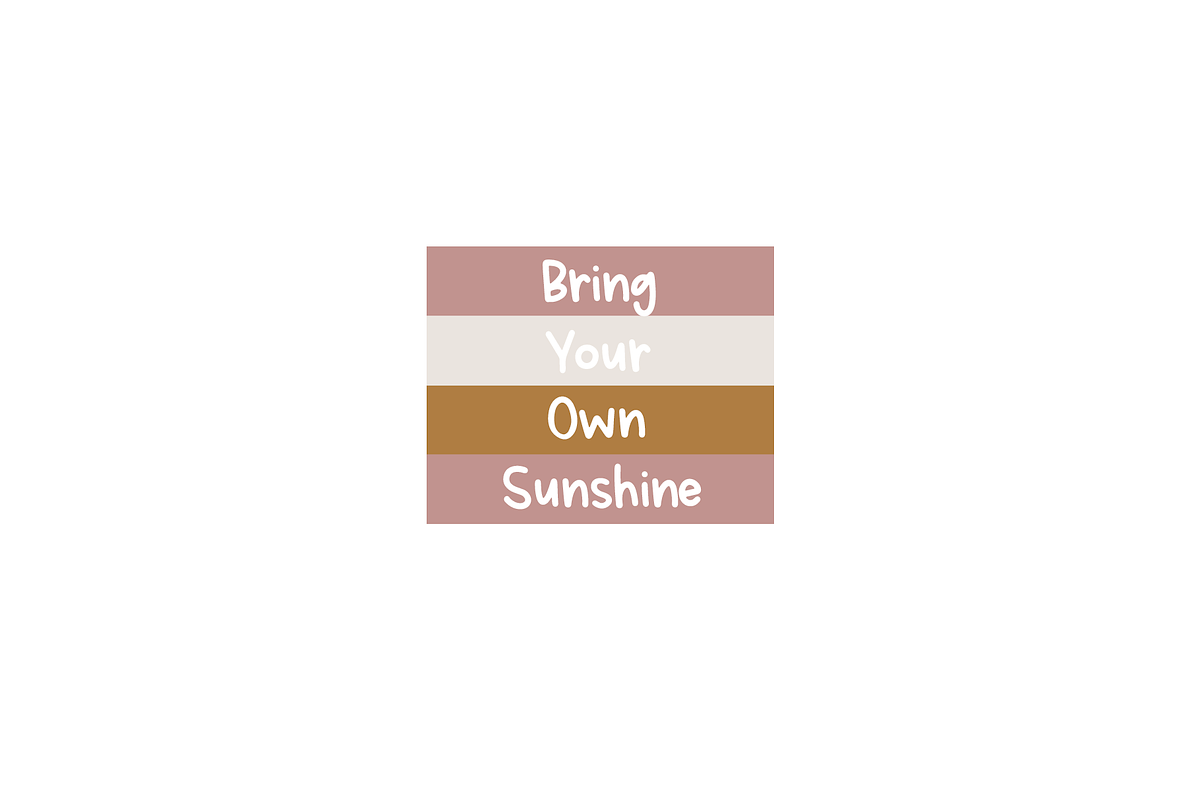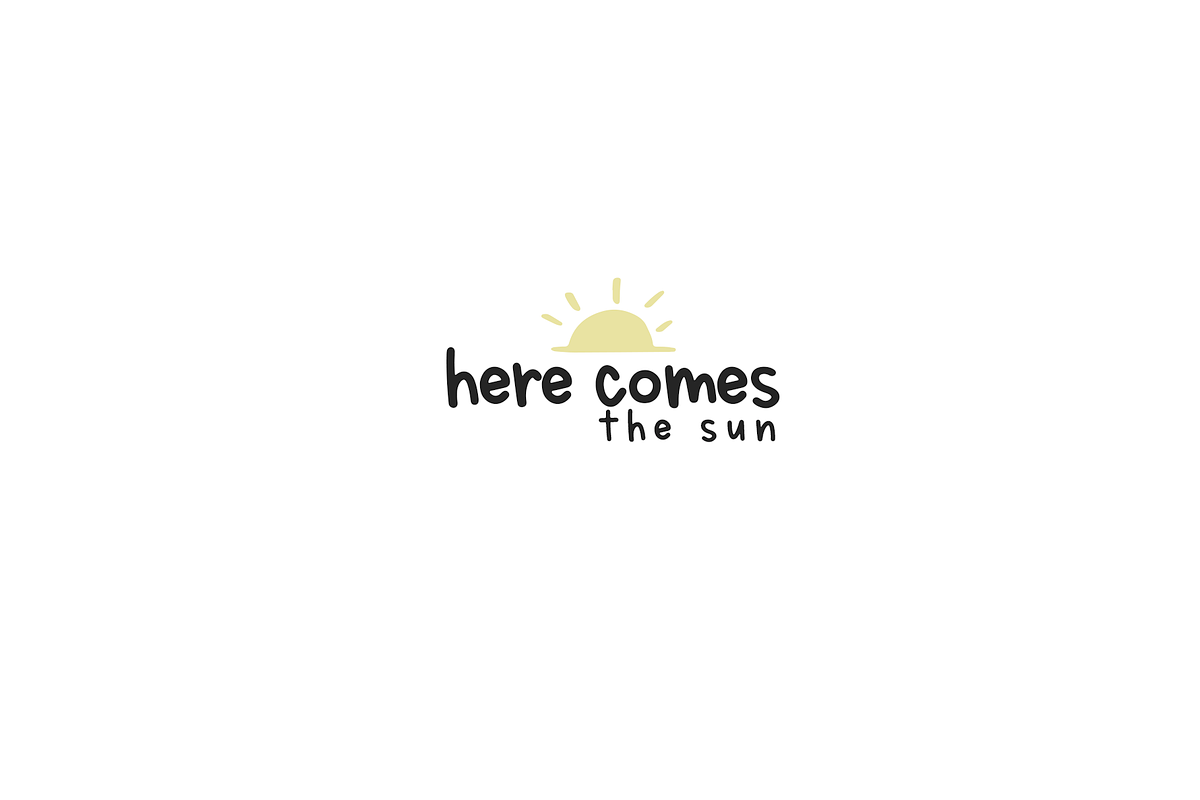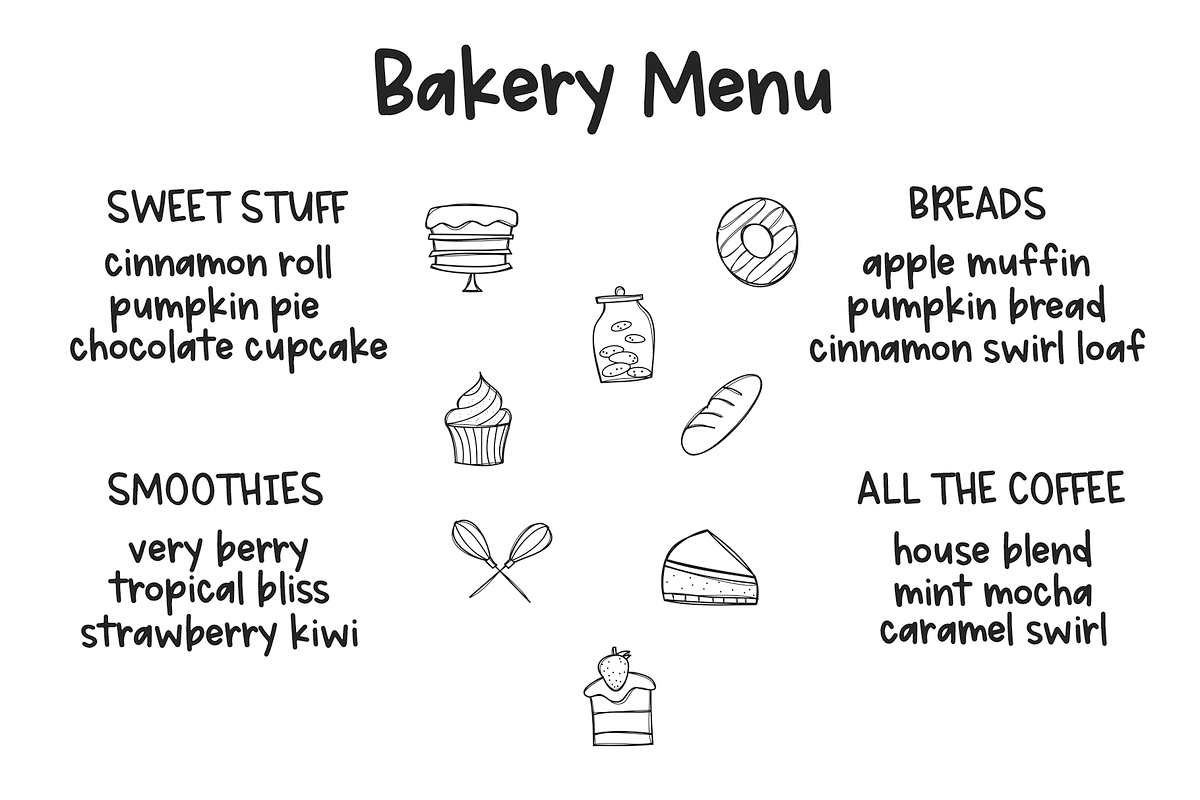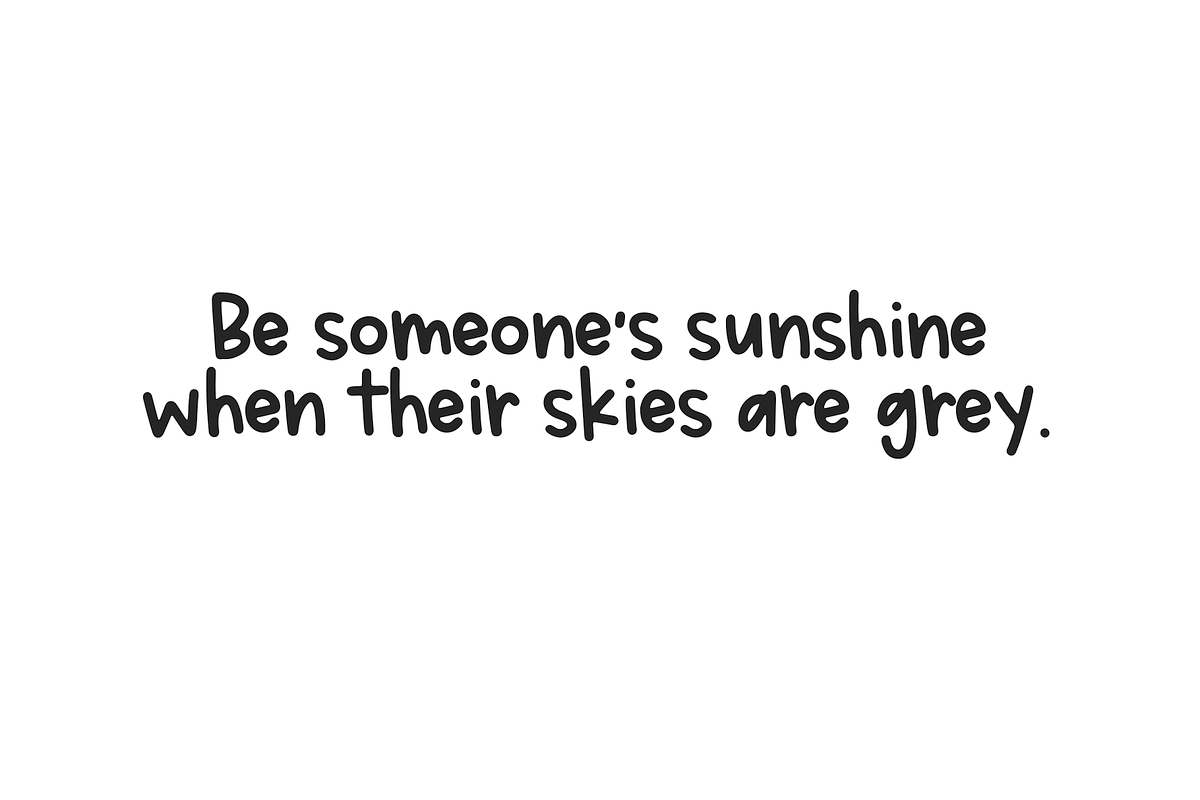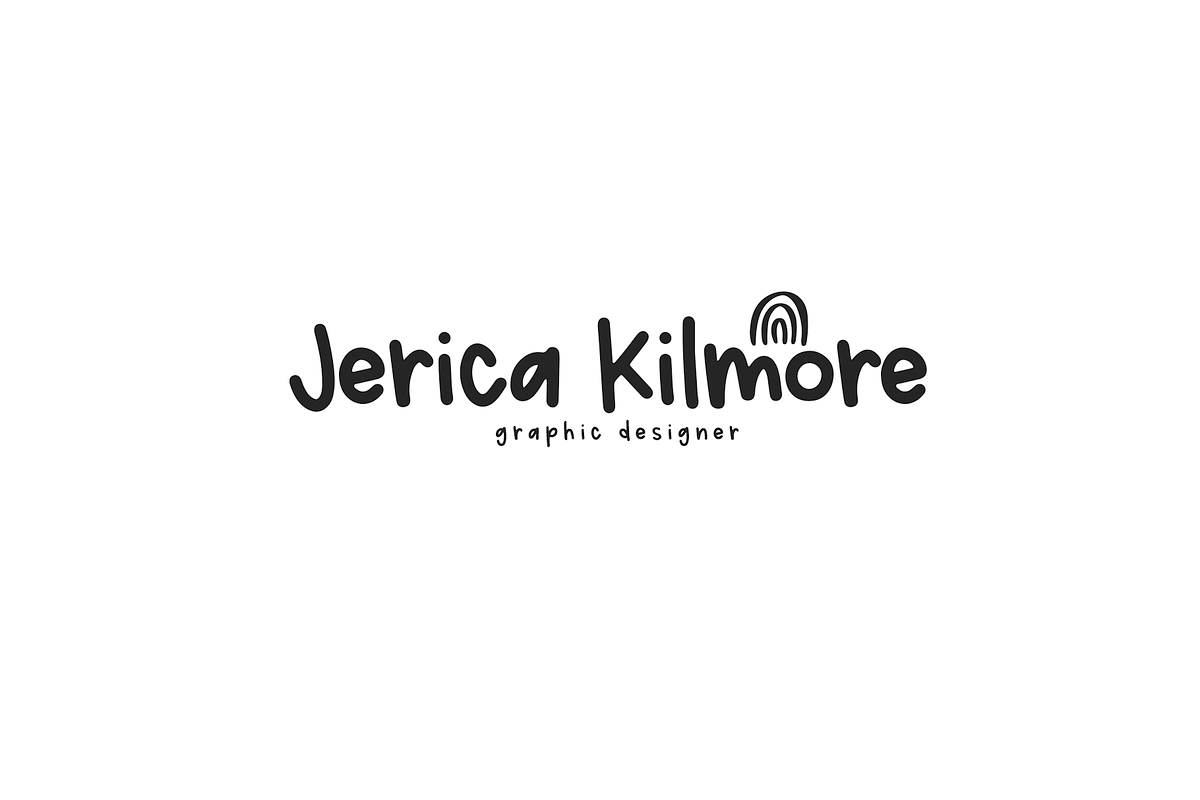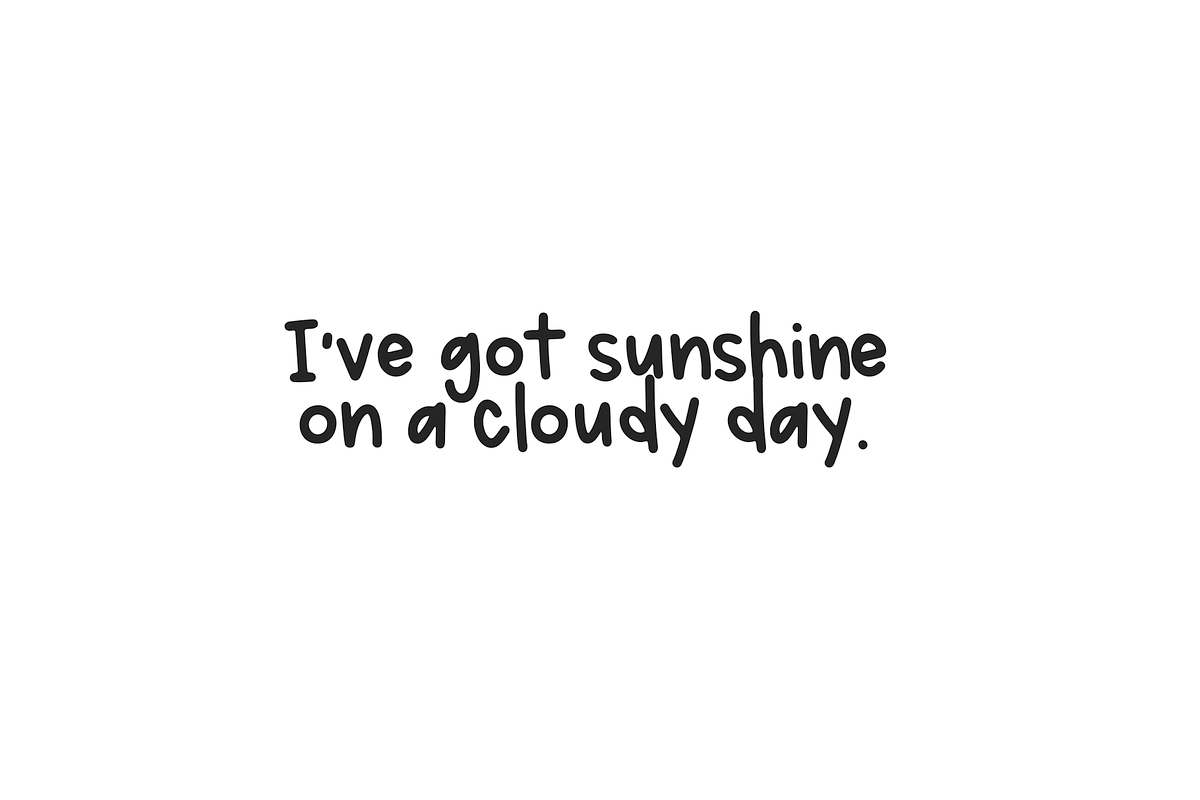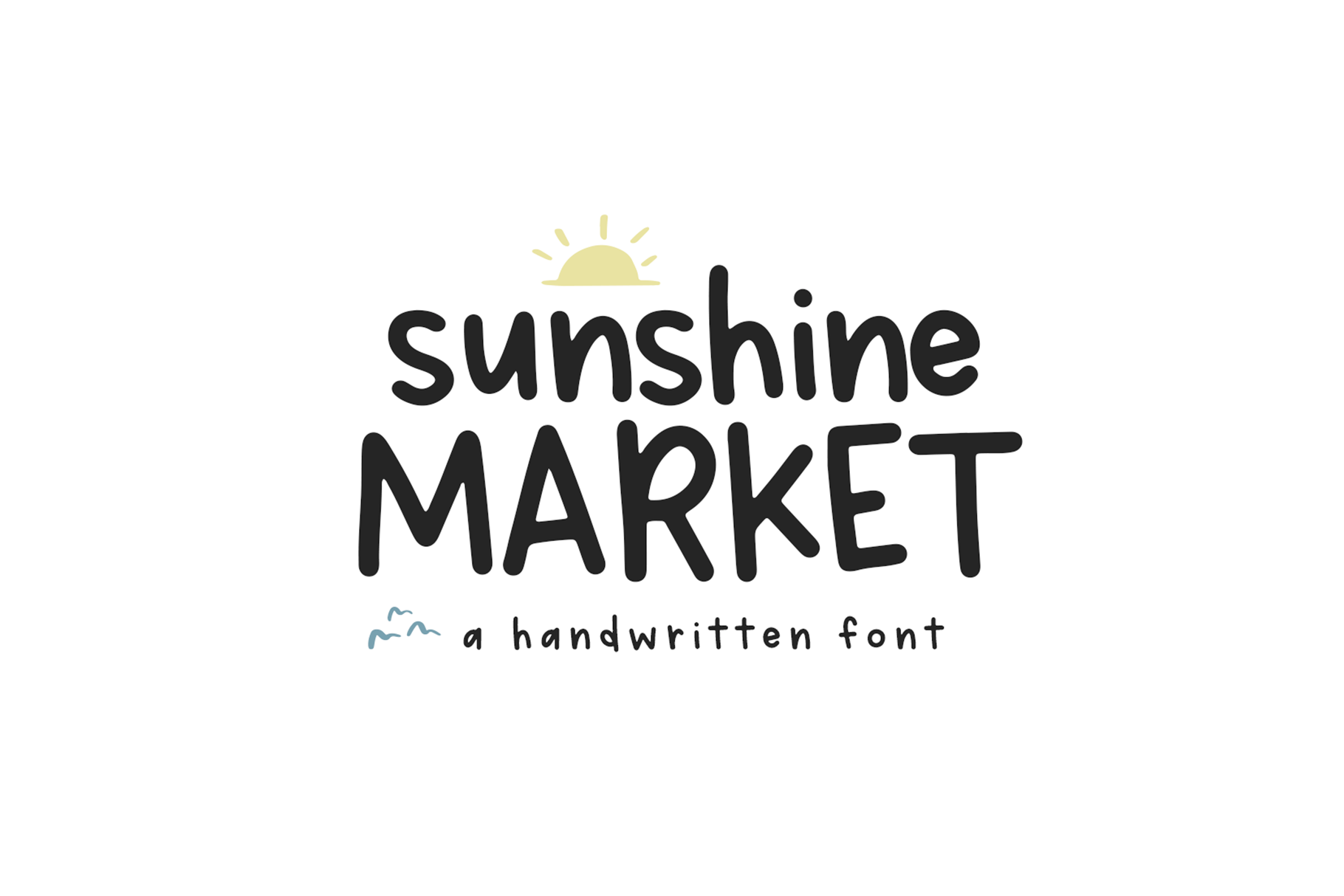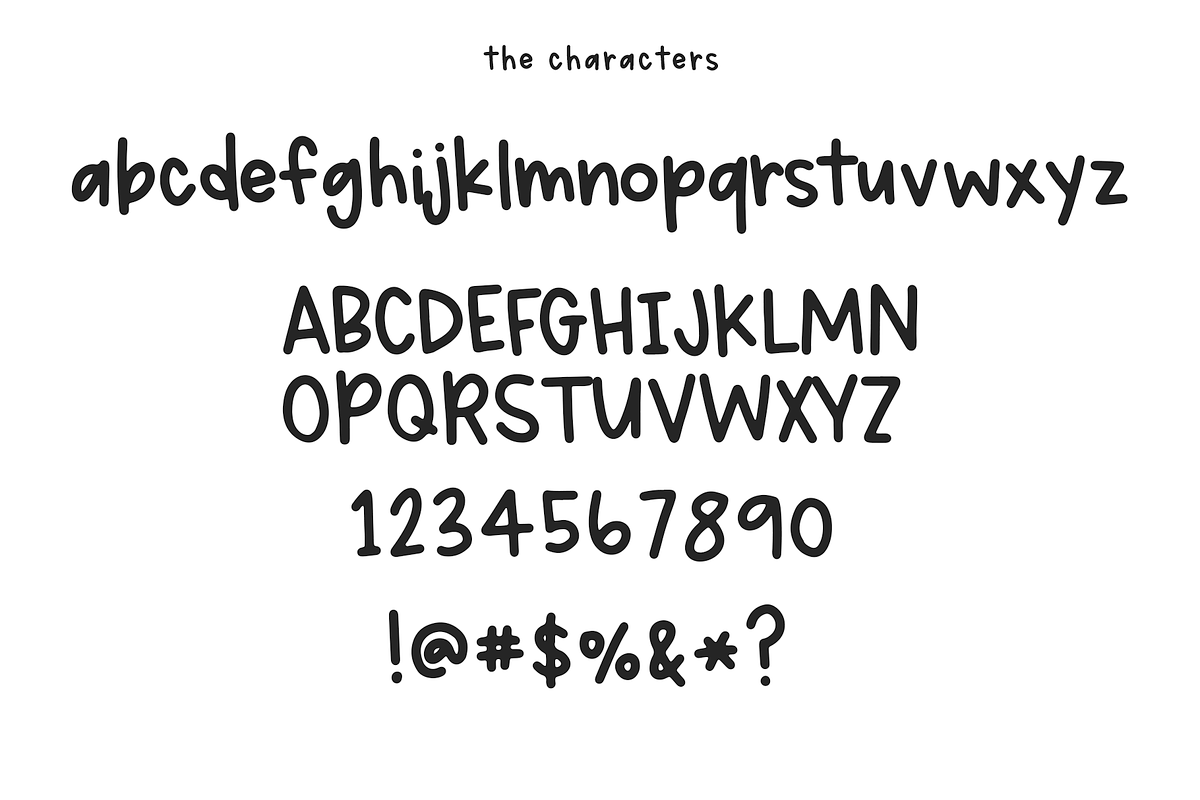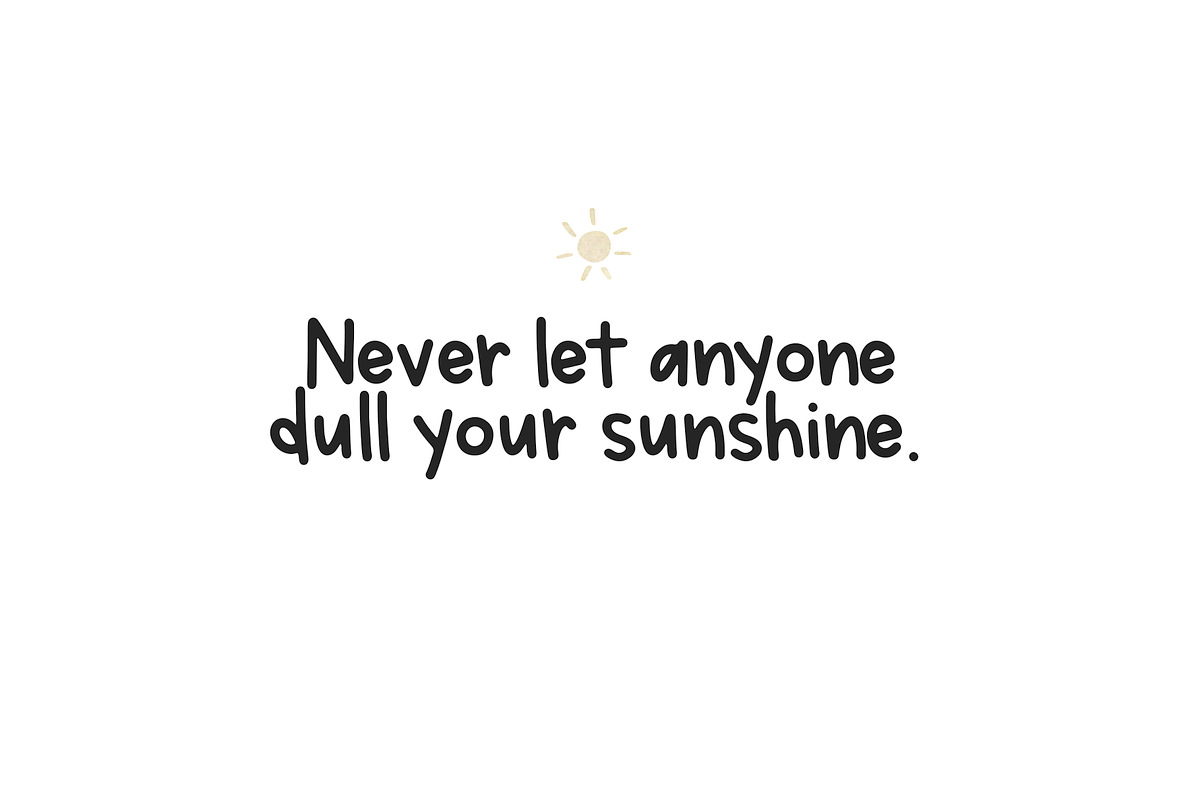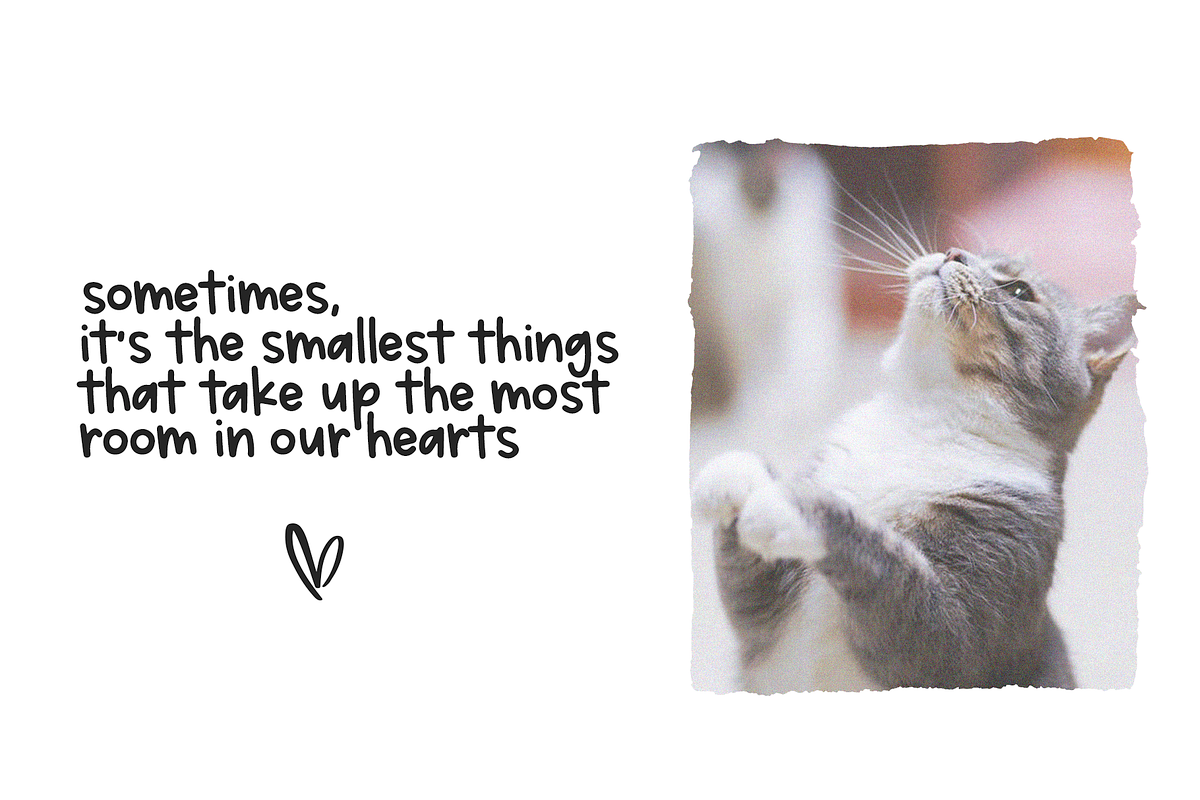
Sunshine Market - Handwritten Font
Sunshine Market is a fun handwritten print font. It is easy to read, big or small, which makes it perfect for your branding needs!
This font is perfect for branding, logos, websites, headings, blogs, invitations and more!
Most accent characters are included.